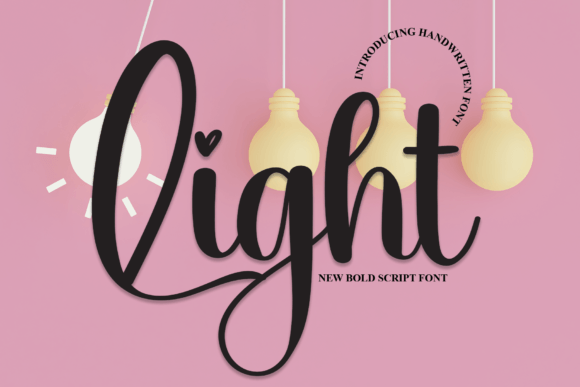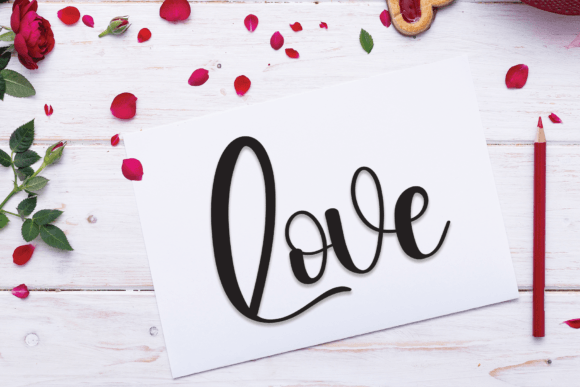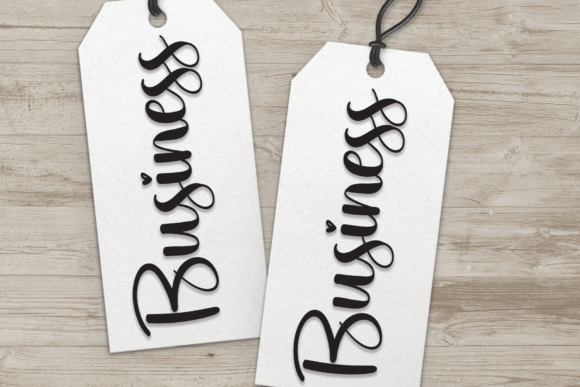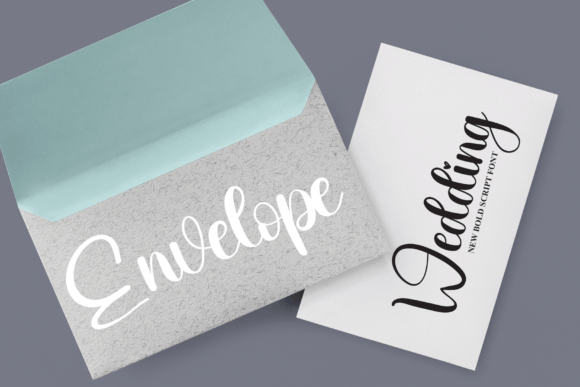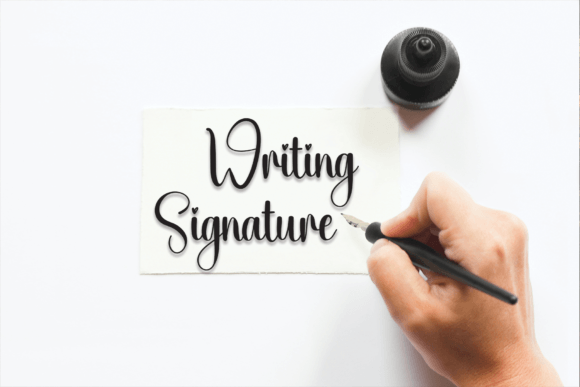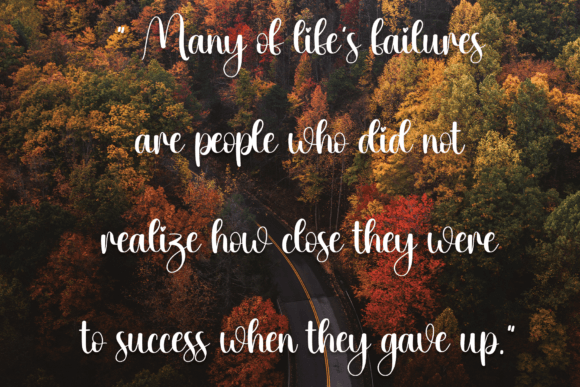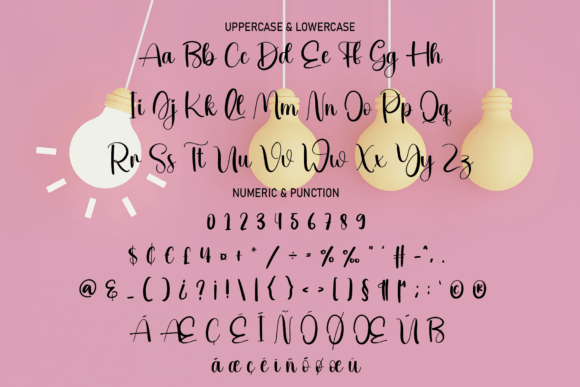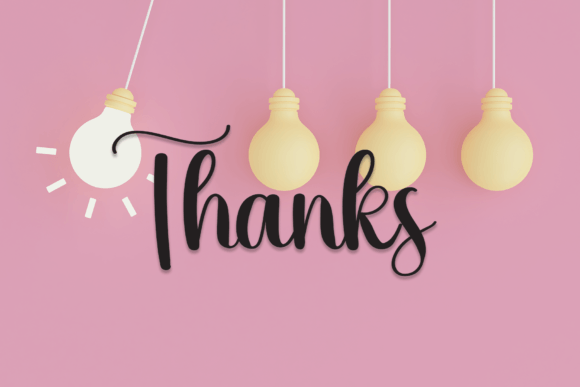
Light Font
About Light Font Download
The Light Font Download is a bold and expressive typeface designed for versatility and impact. With thick, solid strokes and balanced shapes, this font is perfect for both modern and vintage-inspired projects. Unlike highly decorative fonts that sacrifice readability, Light maintains clarity while still offering strong character and personality. It is ideal for designers looking for a display font that combines boldness with usability.
Bold and Easy to Read
The first thing you notice about the Light font is its strong presence. Its thick lines create a visual impact that immediately captures attention, while its conservative curves ensure the design doesn’t overwhelm the eyes. This makes the Light Font Download a reliable choice for projects where readability is just as important as style.
Perfect for Vintage Logos and Branding
Vintage-inspired designs often require bold fonts that stand out while keeping a timeless feel. Light excels in this area. The Light Font Download works beautifully for retro logos, emblems, and badges. Brands that want to communicate strength and authenticity can rely on this typeface to deliver a striking identity that feels both classic and fresh.
Great for Packaging and Product Design
From coffee mugs to food labels, packaging benefits from fonts that are bold, clean, and memorable. The Light Font Download fits perfectly into packaging design because it is easy to read at different sizes while maintaining a strong personality. Whether you are working on modern minimalist packaging or a nostalgic vintage look, this font adapts effortlessly.
Ideal for Signage and Displays
Signage requires fonts that are legible from a distance, and Light was made for this purpose. Its heavy strokes and solid structure make it visible and easy to read on posters, shop signs, and banners. The Light Font Download ensures that your message is noticed quickly, making it highly effective for both indoor and outdoor displays.
Creative Uses in Crafts and Prints
The Light font is not limited to professional branding. It is also a great choice for crafts, embroidery, and personal projects. Whether you are printing designs on mugs, creating wall art, or adding bold text to greeting cards, the Light Font Download brings strength and character to your work.
Versatile Across Digital and Print
One of the most valuable aspects of this typeface is its adaptability. The Light Font Download works seamlessly across digital platforms like websites, social media, and advertisements while also performing well in print applications. This versatility makes it a dependable addition to any designer’s font library.
Why Designers Love Light
Designers appreciate fonts that are bold yet readable, and Light delivers exactly that. Its straightforward letterforms give it wide usability, while its expressive weight ensures it never feels boring. The Light Font Download strikes the perfect balance between strength and simplicity, which is why it is a favorite for a wide range of creative projects.